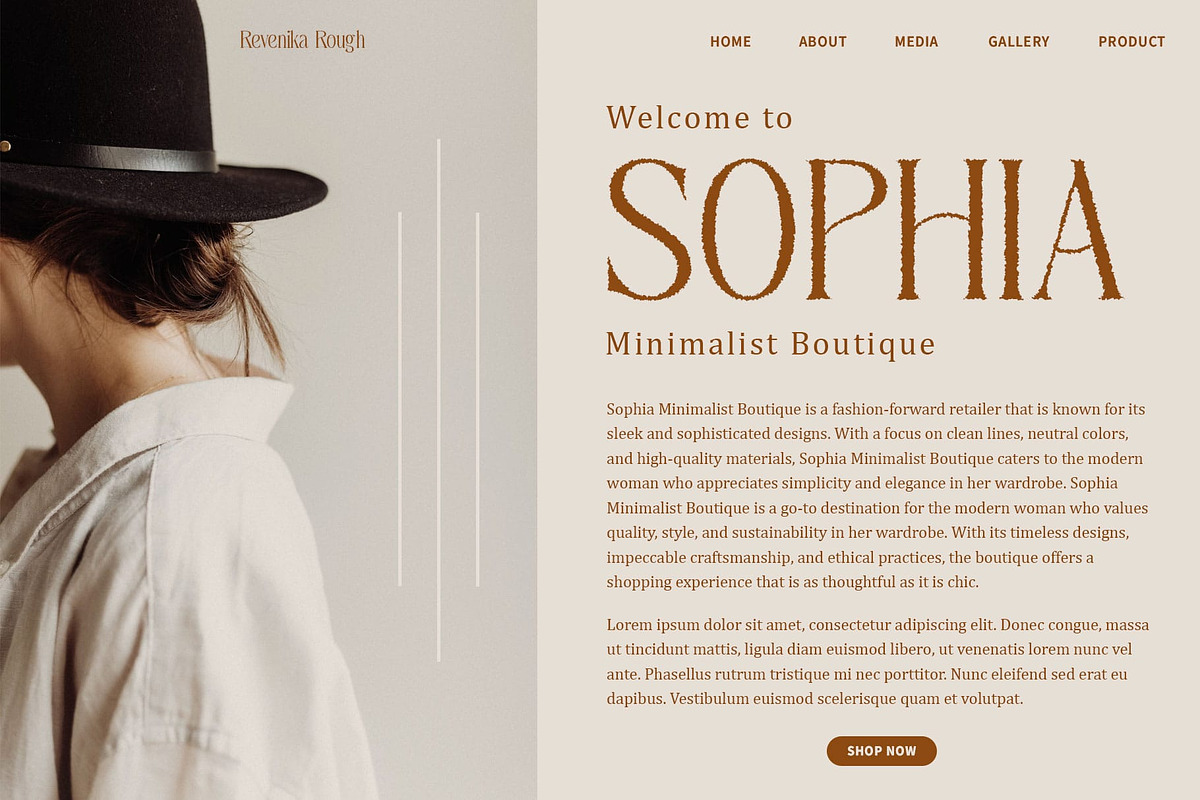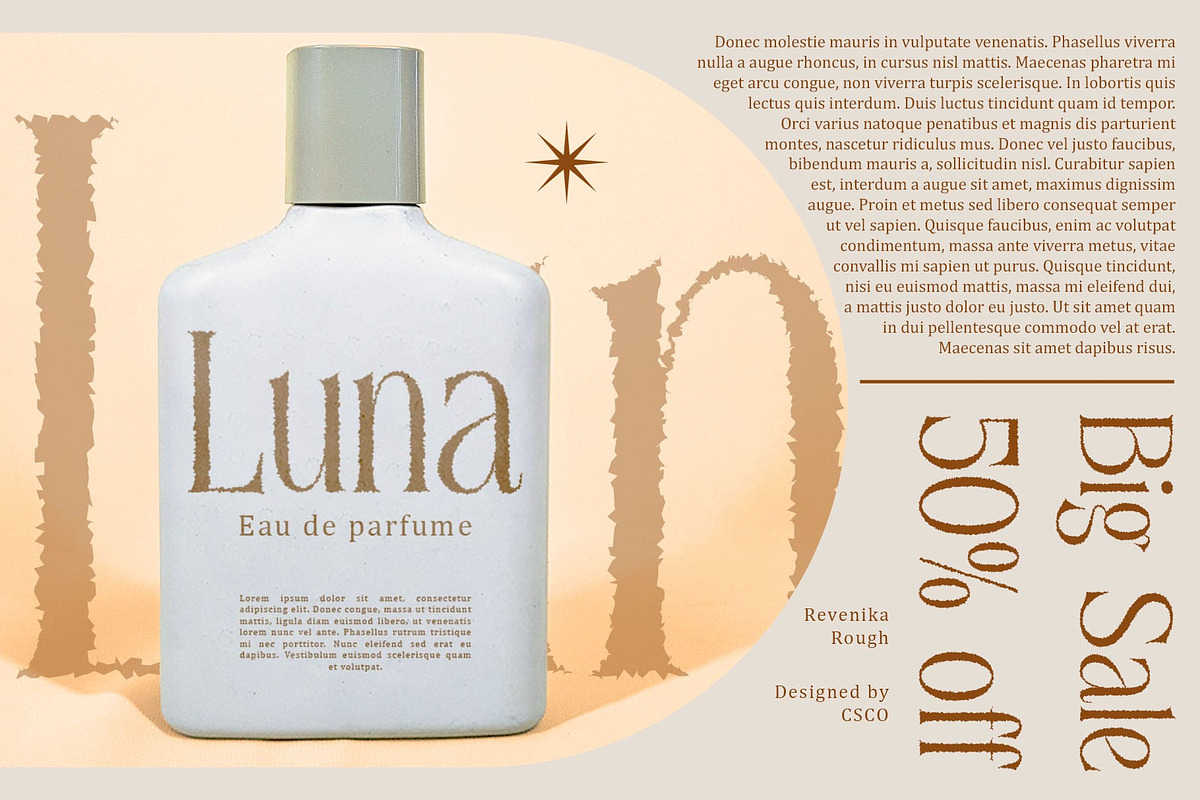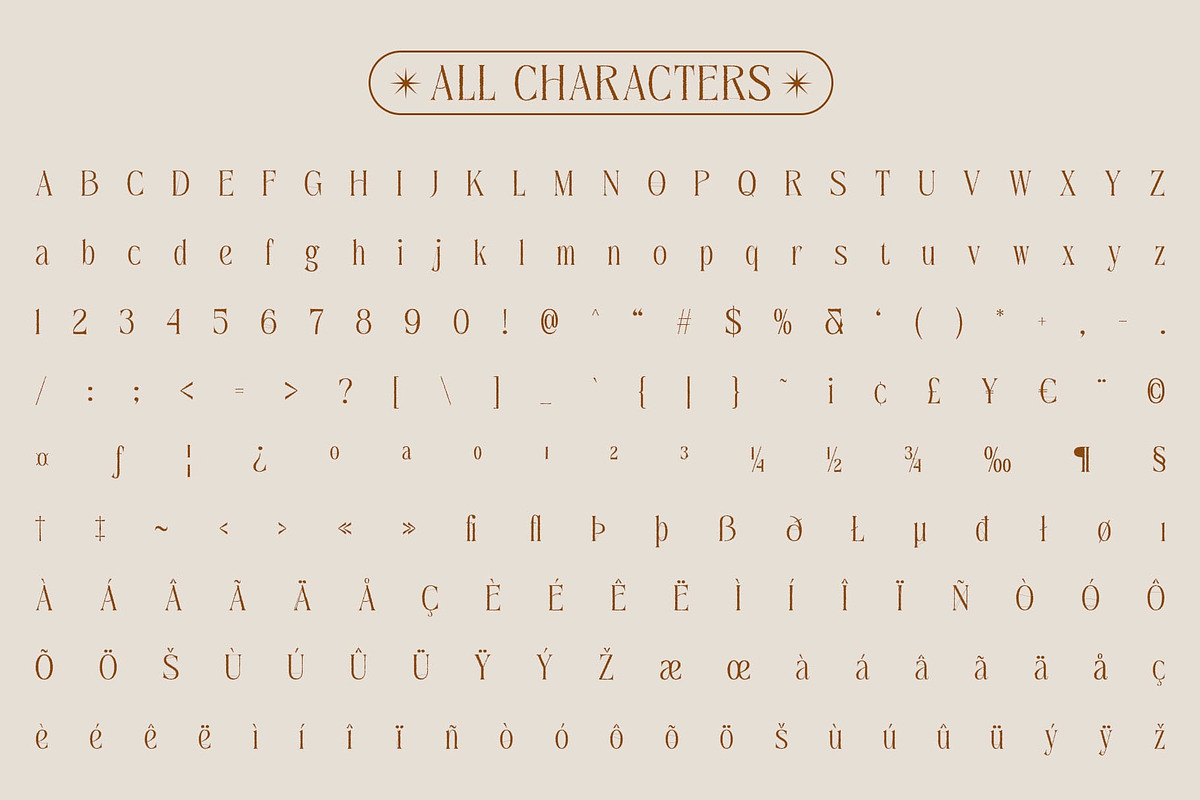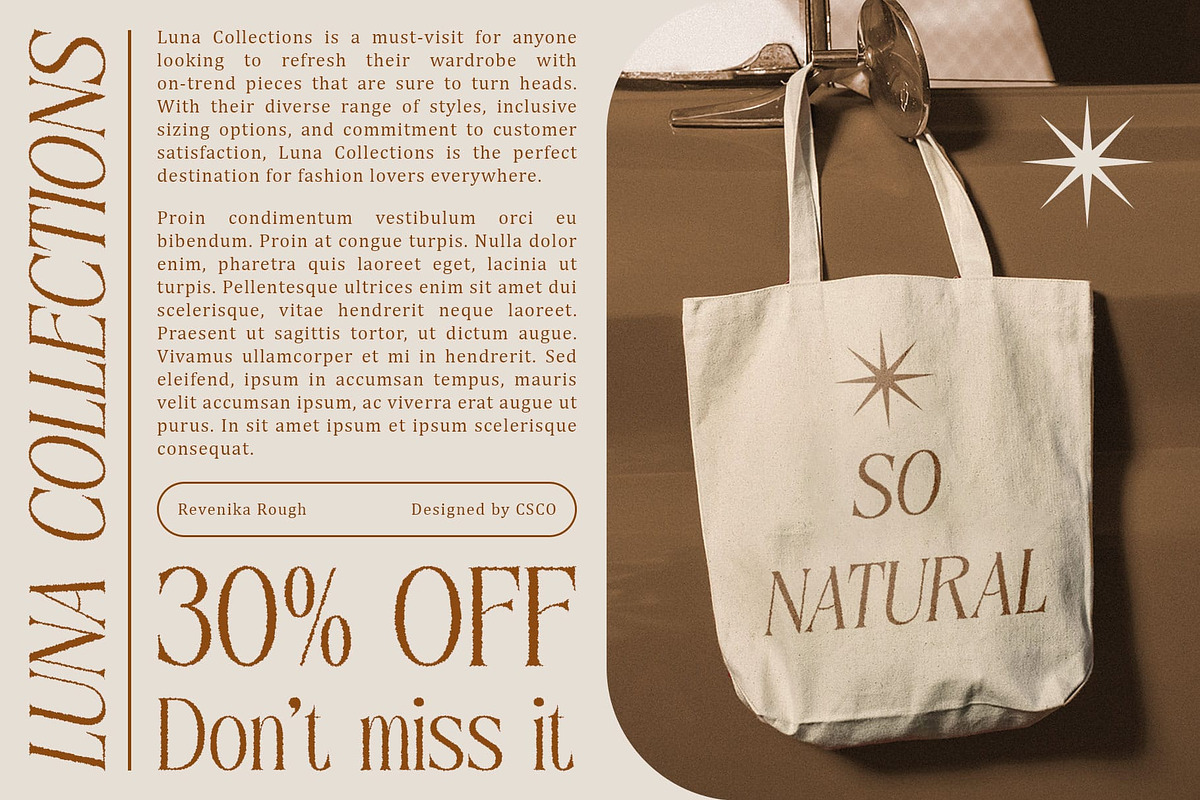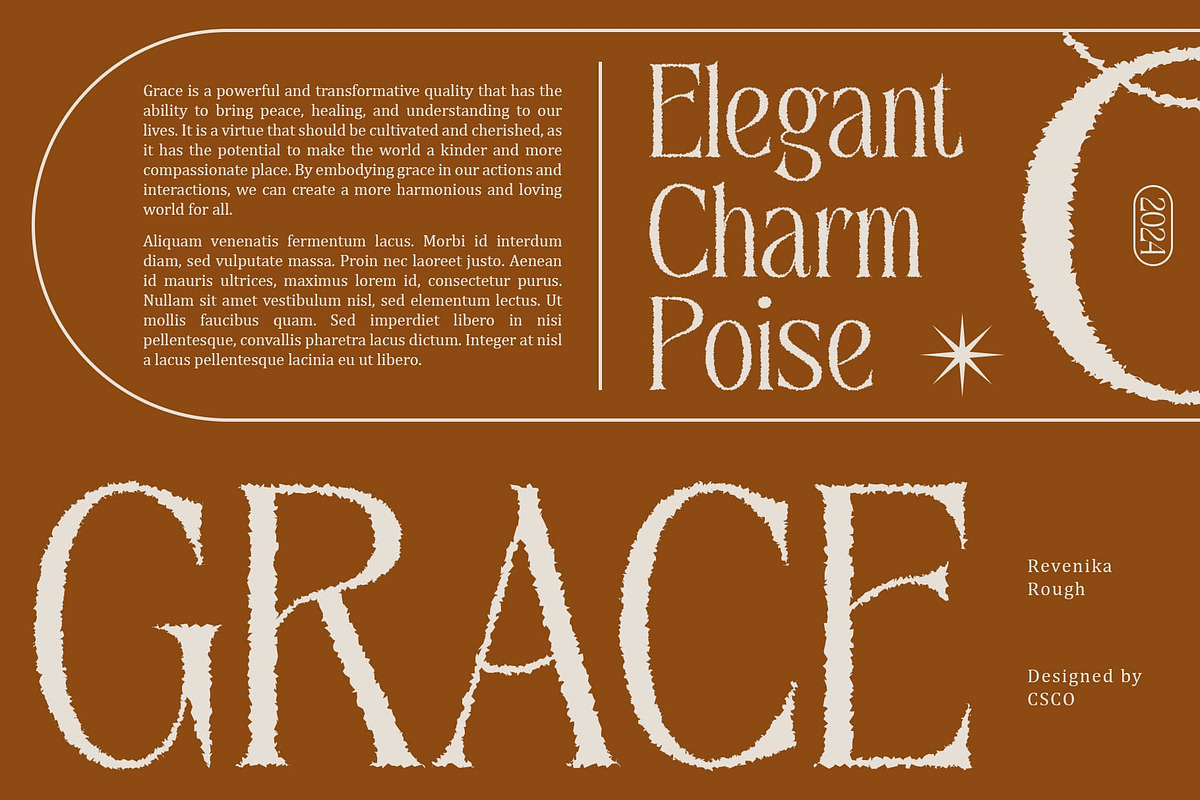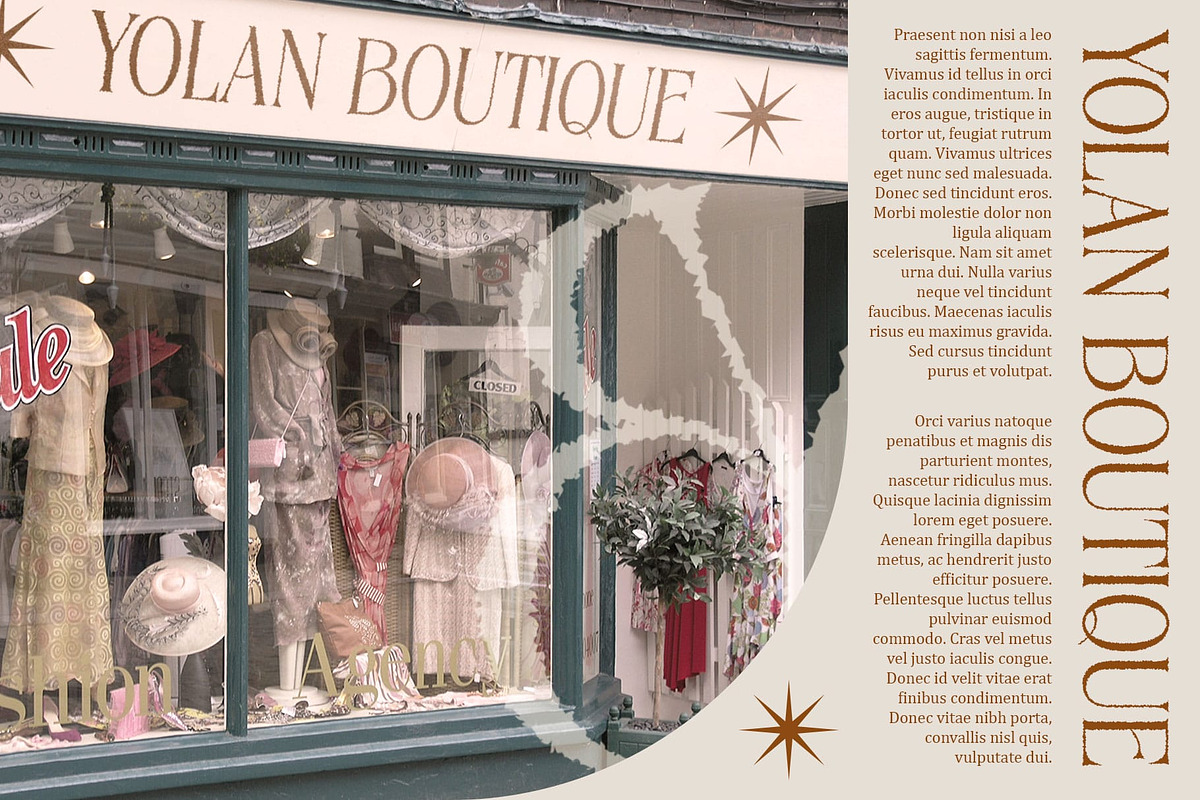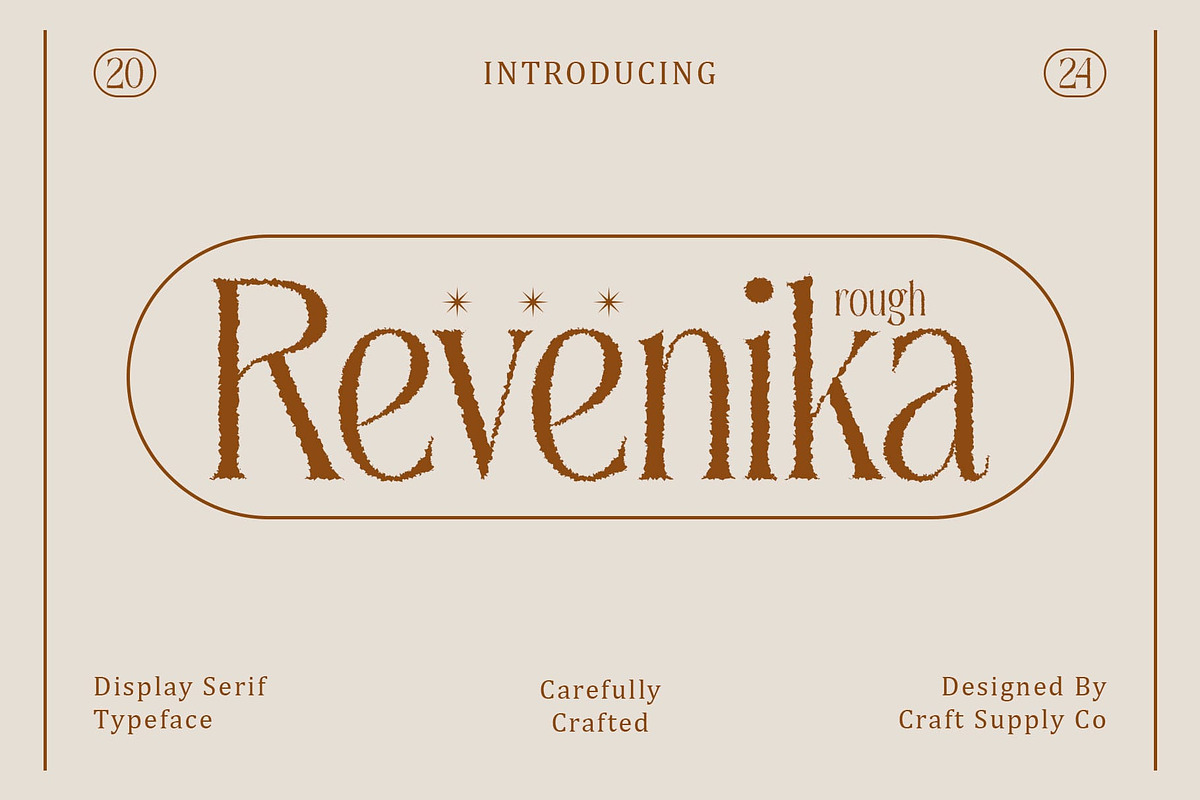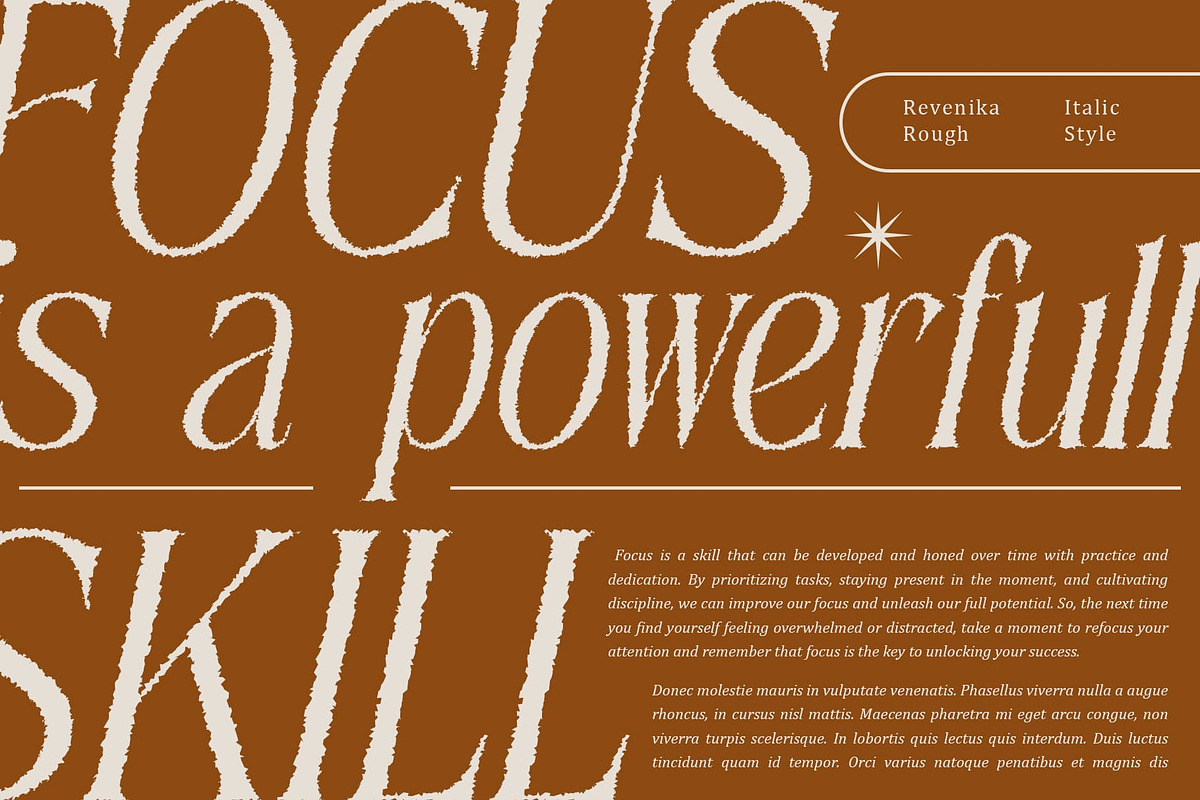
Revenika Rough
Revenika Rough: Elegant Modern Serif Font
Beauty with a Touch of Roughness Revenika Rough is an elegant modern serif font that exudes beauty with a touch of roughness. Its unique design adds a modern edge to your projects, ensuring they stand out with a blend of sophistication and raw charm.
Ideal for Displays Designed to make an impact, Revenika Rough is perfect for headlines, banners, and other display purposes. Its elegant yet rough aesthetic ensures that your message is both seen and remembered.
Versatile and Stylish Despite its rough touch, Revenika Rough is versatile and stylish. Its serif font style makes it suitable for a wide range of projects, from branding to editorial design, where a font with character and charm is essential for making a statement.
Perfect for Adding a Modern Touch Revenika Rough is ideal for projects that require a font with a modern touch. Whether you’re designing a poster, logo, or website, this font will undoubtedly add a unique and memorable element to your designs.